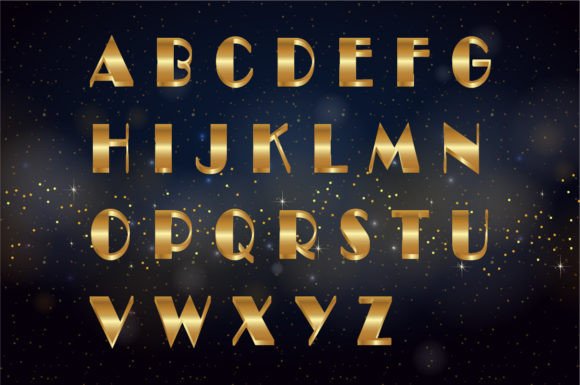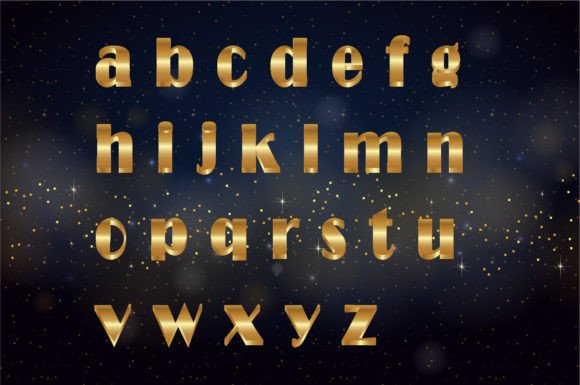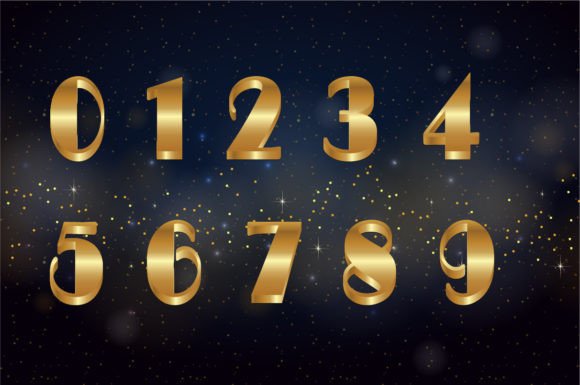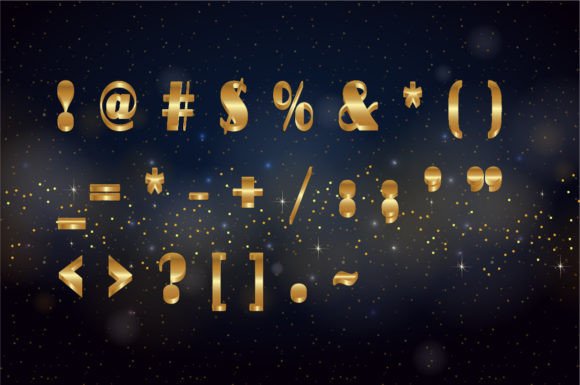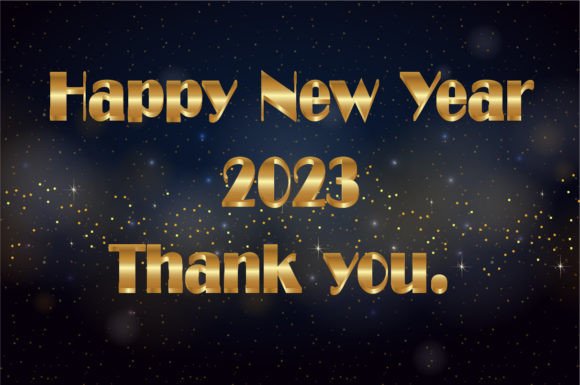
Introducing Golden Letters N.001 Font: Elevate Your Designs with Elegance
Are you a designer or crafter looking to add a touch of luxury and sophistication to your creations? Look no further than the Golden Letters N.001 Font. This stunning color font is designed to help you easily create breathtaking designs that will leave a lasting impression.
What is Golden Letters N.001 Font?
Golden Letters N.001 is a stylish and elegant color font that features beautiful, golden letters. Each letter is meticulously crafted to exude a sense of luxury, making it perfect for designs that require a high-end feel. Whether you’re working on a branding project, creating social media graphics, or crafting digital art, this font is sure to elevate your work.
Key Features of Golden Letters N.001 Font
- Stylish and Elegant Design: The Golden Letters N.001 Font boasts a sophisticated design that will add a touch of elegance to any project.
- Color Font: Unlike traditional fonts, Golden Letters N.001 is a color font, allowing you to add a pop of color to your designs without the need for additional graphics.
- Easy to Use: This font is incredibly easy to use, making it perfect for designers and crafters of all skill levels.
- Versatile: The Golden Letters N.001 Font can be used in a wide range of projects, from digital art to branding and social media graphics.
Benefits of Using Golden Letters N.001 Font
So, why choose the Golden Letters N.001 Font for your next project? Here are just a few benefits of using this stunning font:
- Save Time: With Golden Letters N.001, you can create stunning designs in a fraction of the time it would take with traditional design methods.
- Stand Out: The unique, golden letters will help your designs stand out from the crowd, making it perfect for projects where you want to make a lasting impression.
- Easy to Customize: The font is easy to customize, allowing you to adjust the color, size, and style to fit your project’s needs.
Who Can Benefit from Golden Letters N.001 Font?
The Golden Letters N.001 Font is perfect for a wide range of designers and crafters, including:
- Graphic Designers: Add a touch of luxury to your branding projects, social media graphics, and more.
- Digital Artists: Create stunning digital art with the Golden Letters N.001 Font.
- Crafters: Use the font to create beautiful, professional-looking projects, such as handmade cards and gift tags.
- Small Business Owners: Elevate your marketing materials with the sophisticated, golden letters.
Tips and Tricks for Using Golden Letters N.001 Font
Here are a few tips and tricks to help you get the most out of the Golden Letters N.001 Font:
- Experiment with Different Colors: While the font features golden letters, you can experiment with different colors to match your project’s theme.
- Mix and Match Fonts: Combine the Golden Letters N.001 Font with other fonts to create a unique, layered look.
- Use it for Headlines and Titles: The font is perfect for headlines and titles, adding a touch of luxury and sophistication to your designs.
In conclusion, the Golden Letters N.001 Font is a stylish and elegant color font that can elevate your designs to the next level. With its sophisticated, golden letters and easy-to-use design, it’s perfect for designers and crafters of all skill levels. Whether you’re working on a branding project, creating digital art, or crafting handmade projects, this font is sure to help you create stunning designs that will leave a lasting impression.